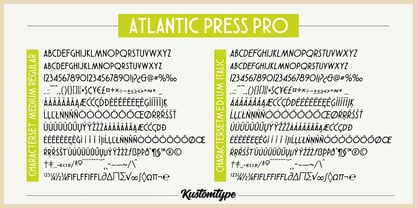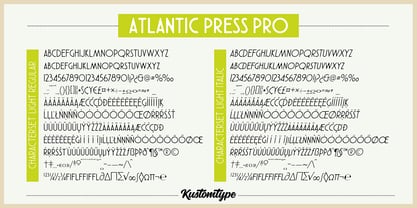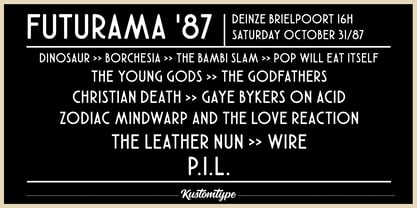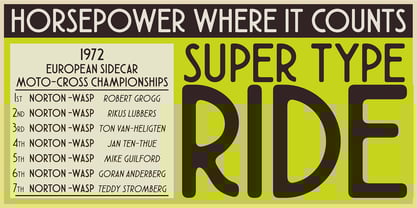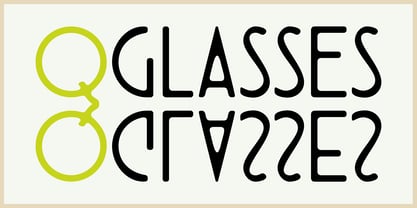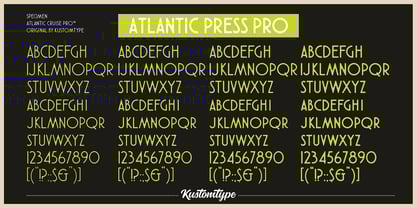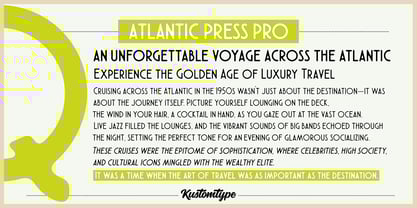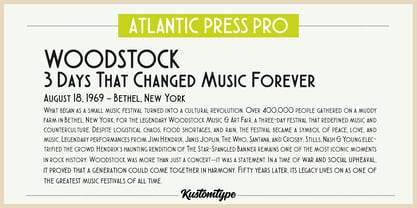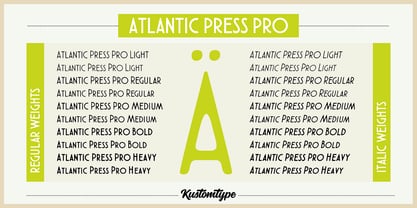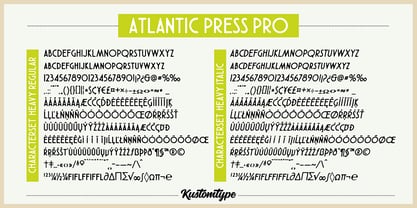
Atlantic Press Pro
by Kustomtype
The Atlantic Press Pro Font Family was designed by Coert De Decker and published by Kustomtype. Atlantic Press Pro contains 20 styles and family package options. More about this family
Bring Classic Letterpress to Life: Discover ‘Atlantic Press Pro’
Step into the world of refined letterpress typography with Atlantic Press Pro—an elegant, vintage-inspired font designed to capture the timeless beauty of classic print techniques. Created as the perfect complement to Atlantic Cruise Pro, this typeface features a subtle ink-bleed effect, adding warmth and authenticity to your designs.
With 10 versatile weights—from Light to Heavy, plus Italics—Atlantic Press Pro blends classic charm with modern versatility. Perfect for branding, editorial design, luxury packaging, and contemporary graphics, it brings a sophisticated, handcrafted feel to any project.
Designers: Coert De Decker
Foundry: Kustomtype